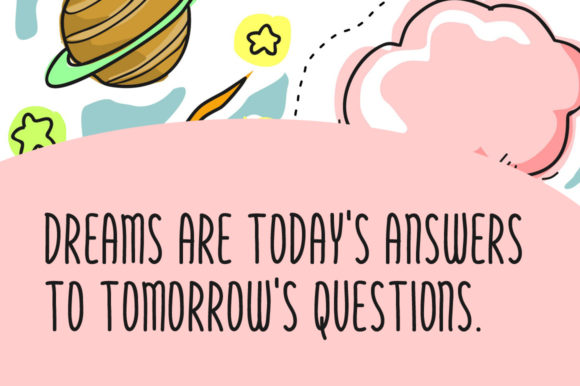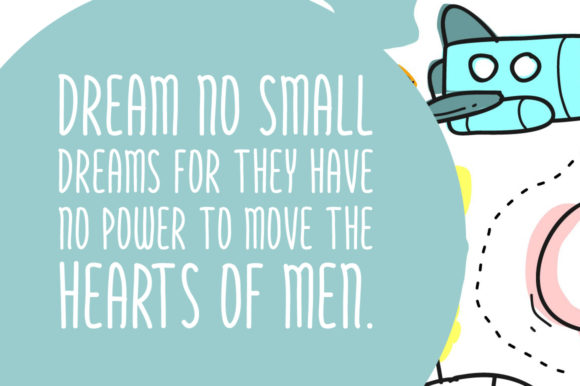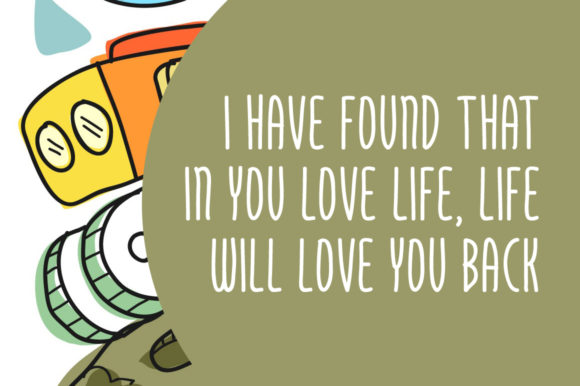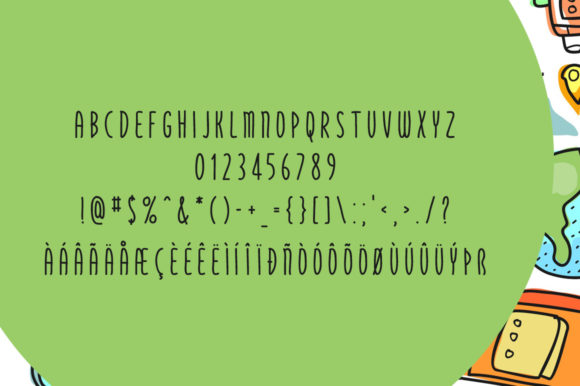
About Bonzer Dreamer Font
The Bonzer Dreamer is a brand new handwritten font. It’s perfectly suited for stationery, logos, t-shirts, papers, print designs, website headers, photo frames, flyers, music covers, posters, image sliders and every other design which needs a striking typeface.